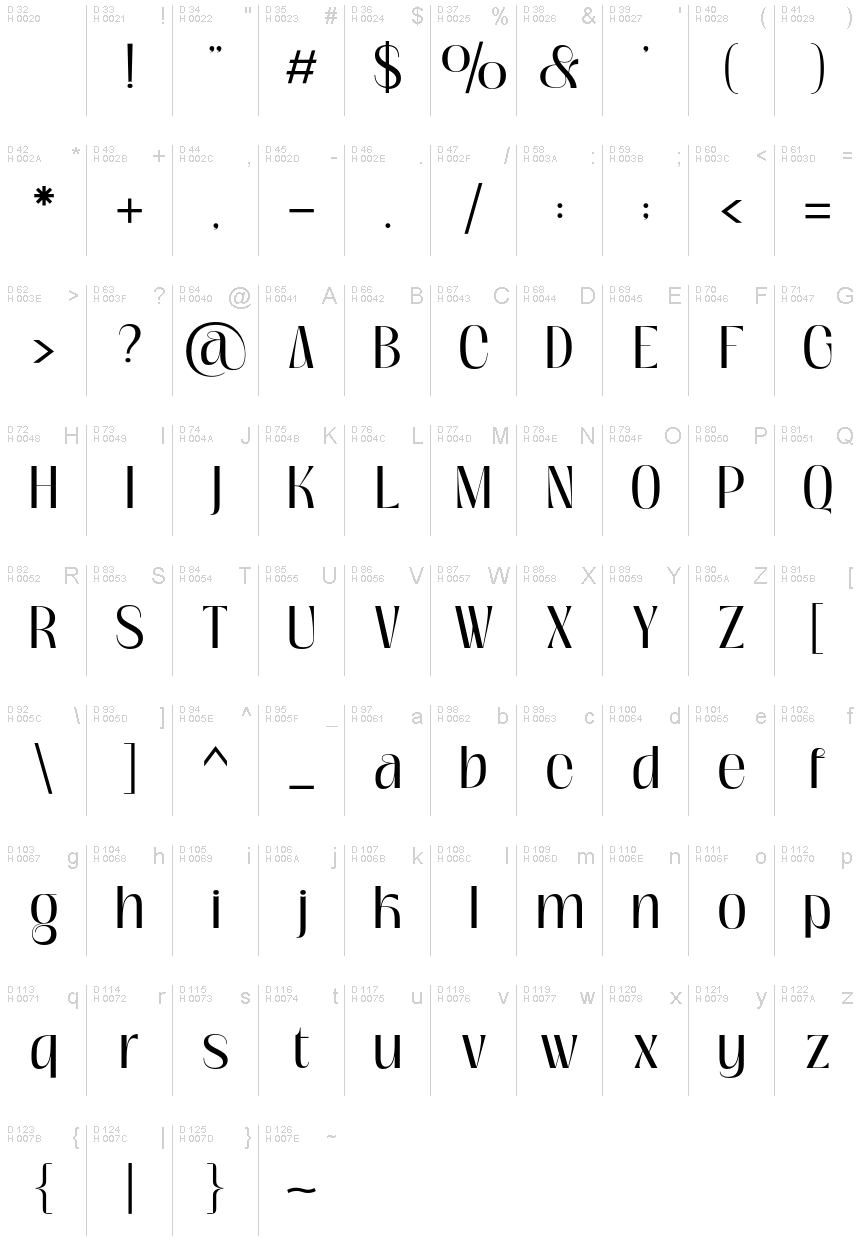
Aloha Magazine Light font is designed by Nirmana Visual. Elegant and sophisticated, Aloha Magazine Light font comes in a classic serif style with ultra thin strokes that accentuate the text in an elegant multi-purpose typeface that fits any occasion. With a highly polished and artistic flair, this modern blend is accented by stylistic delicacies like its high contrast look and stylish curves with delicate terminals which gives Aloha Magazine Light font character while also still keeping it readable for body-text use cases.